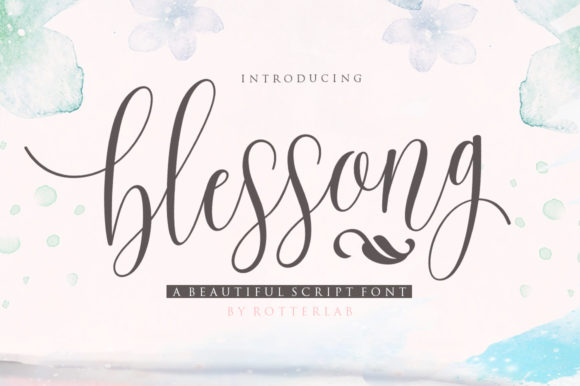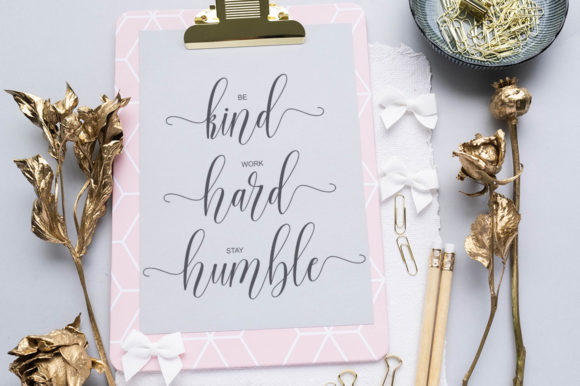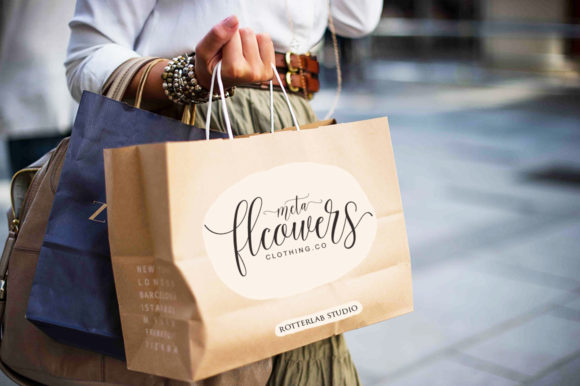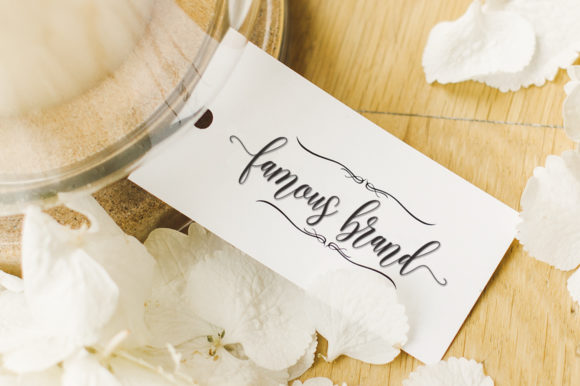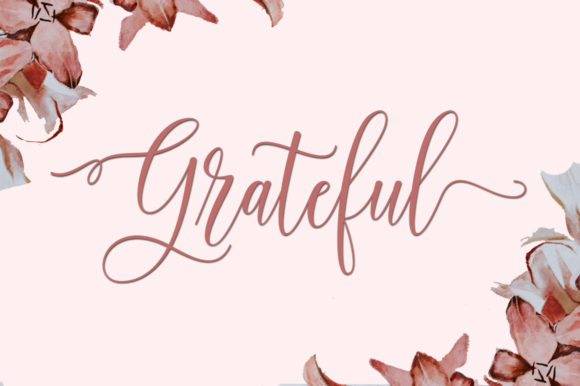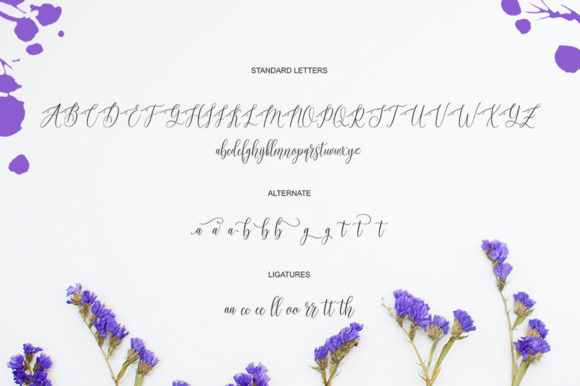
Blessong Font
About Blessong Font
Blessong is an incredibly stunning handwritten font with a lot of character. Use it to turn any design idea into a piece of art.